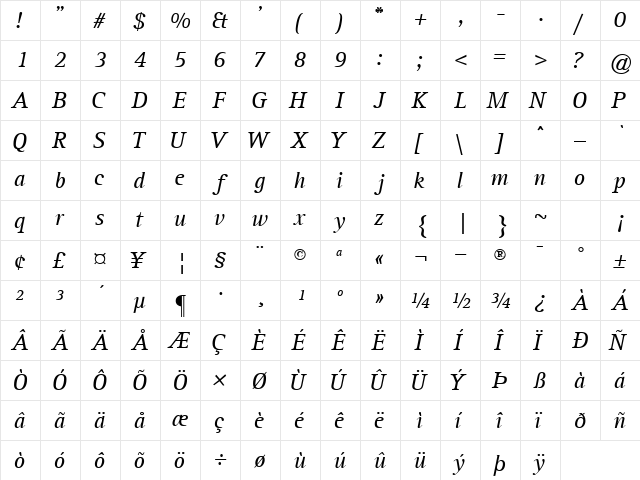
LibreSerifSSK Italic
Design Context for LibreSerifSSK Typeface
LibreSerifSSK carries the refined structure of traditional serif typography, with bracketed terminals and considered proportions that communicate credibility and craft. The slanted form adds forward momentum and visual energy.
Pro Tip: Set LibreSerifSSK with slightly loose tracking in headlines to let each letterform's detail read clearly at display sizes.